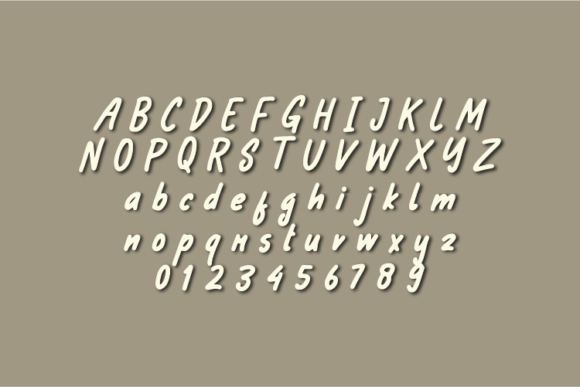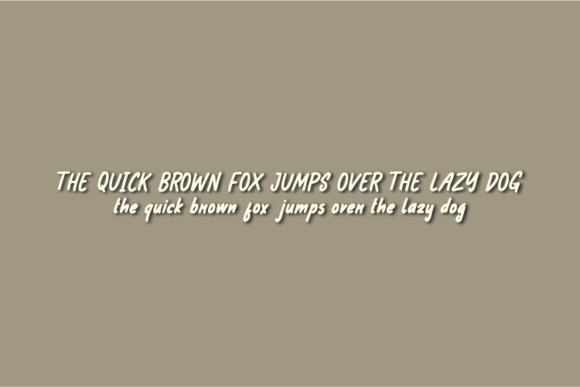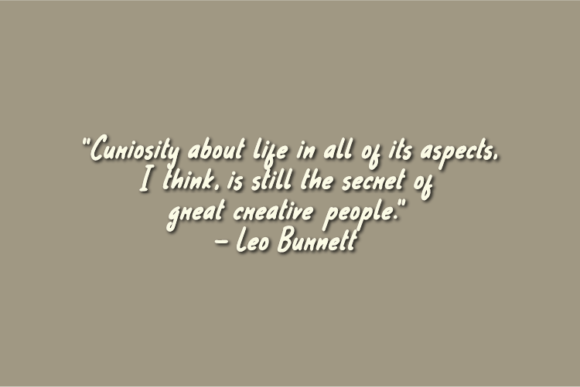
Semifreddo Font
About Semifreddo Font
Semifreddo is a natural handwritten font made without changing a single node in each character’s indentation. This makes this font very interesting and unique. Perfect for quotes, notes, tees, and any product design.